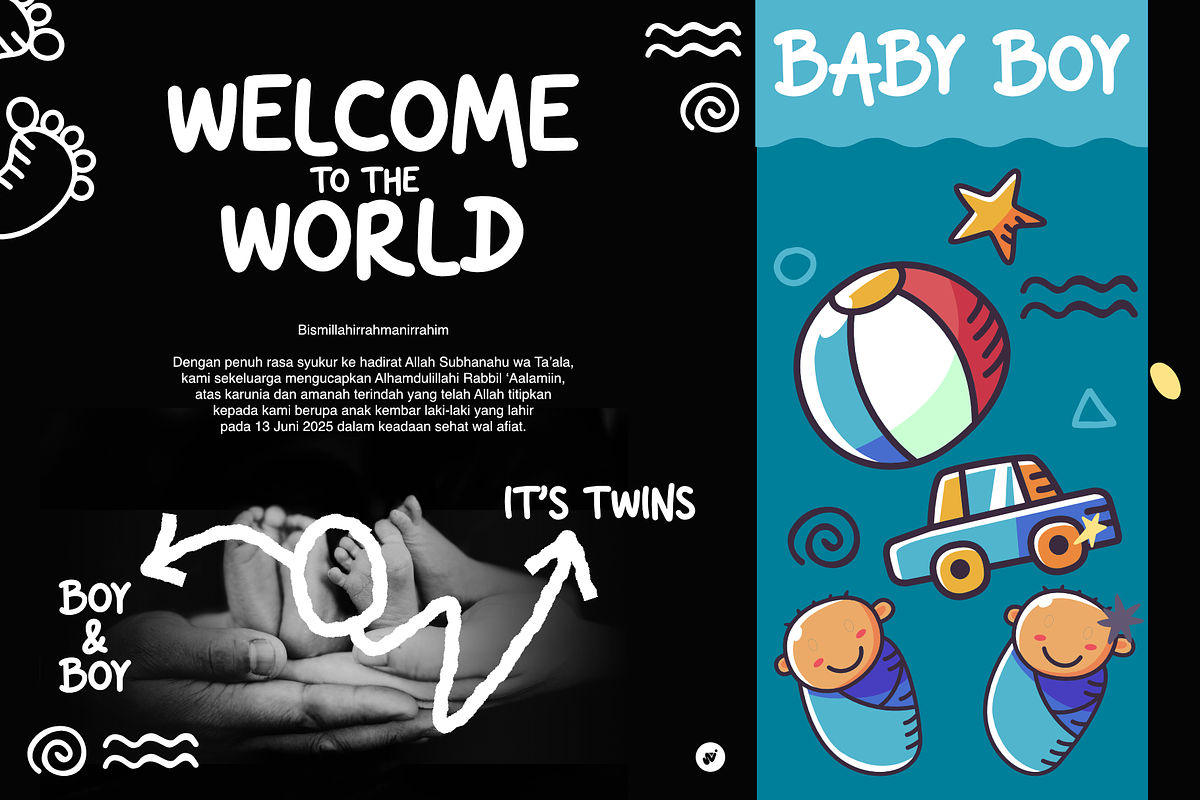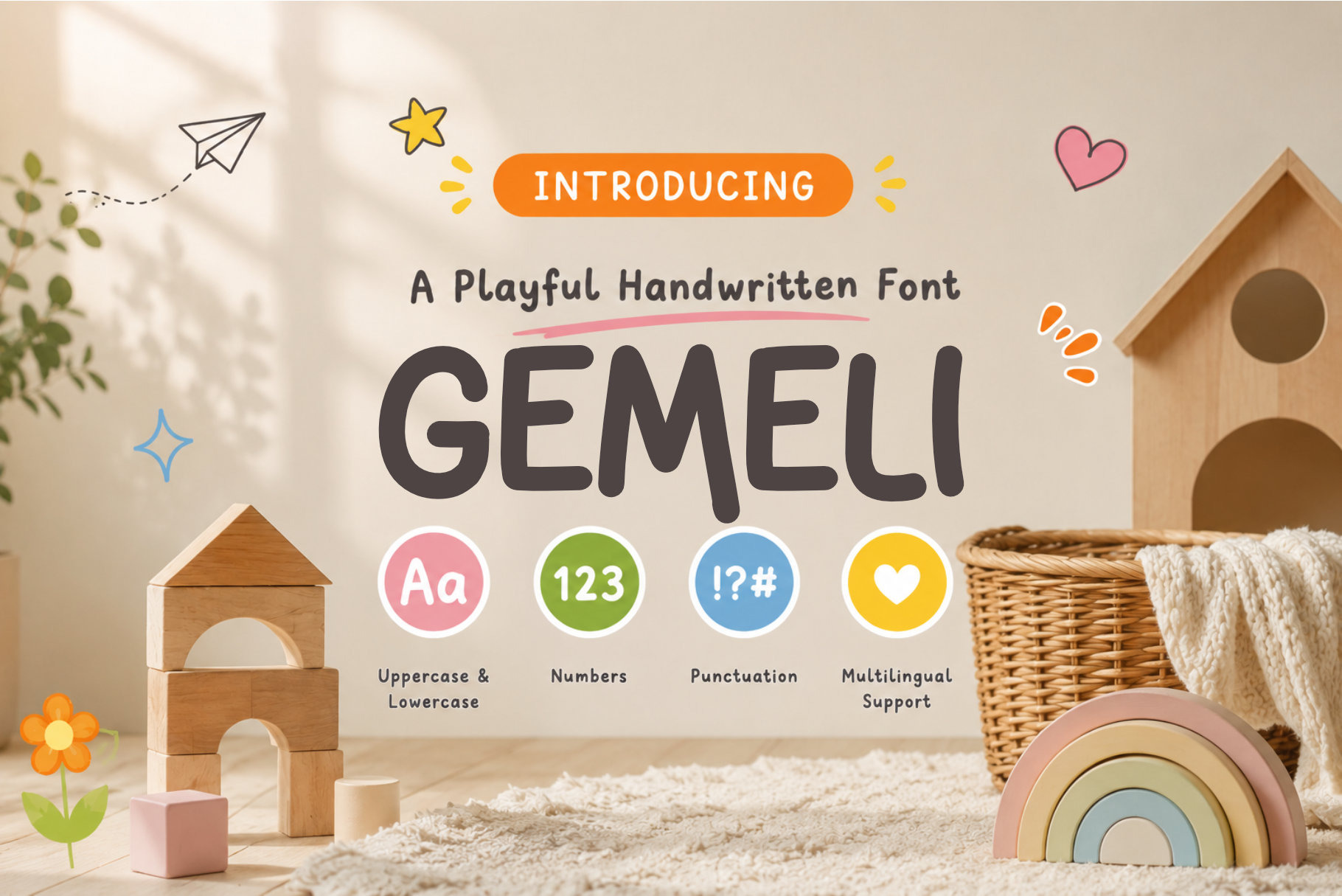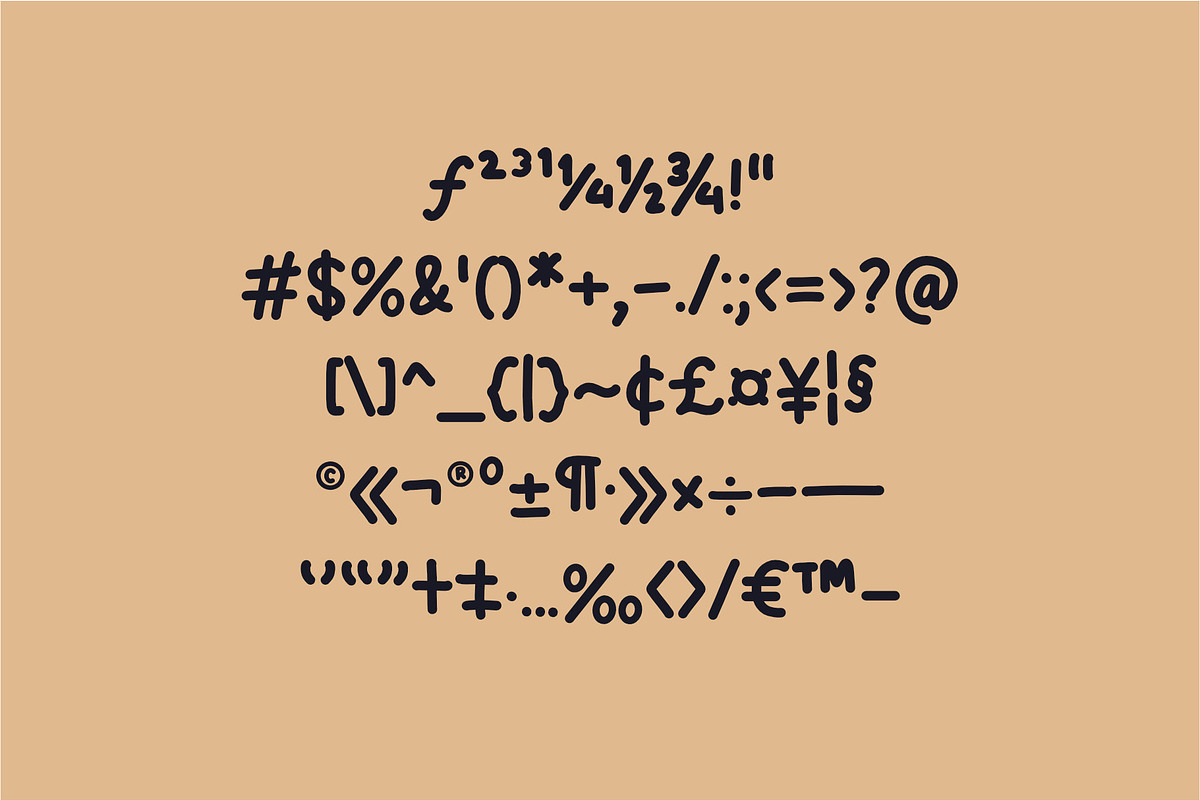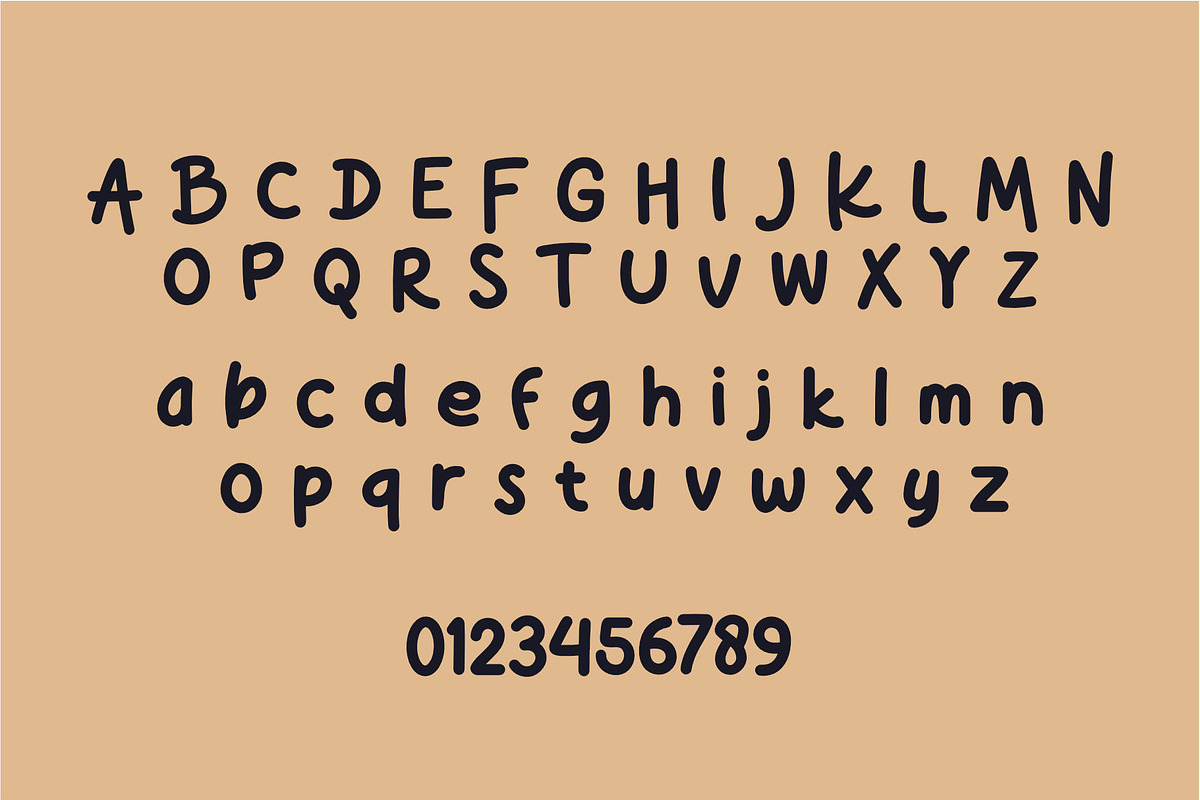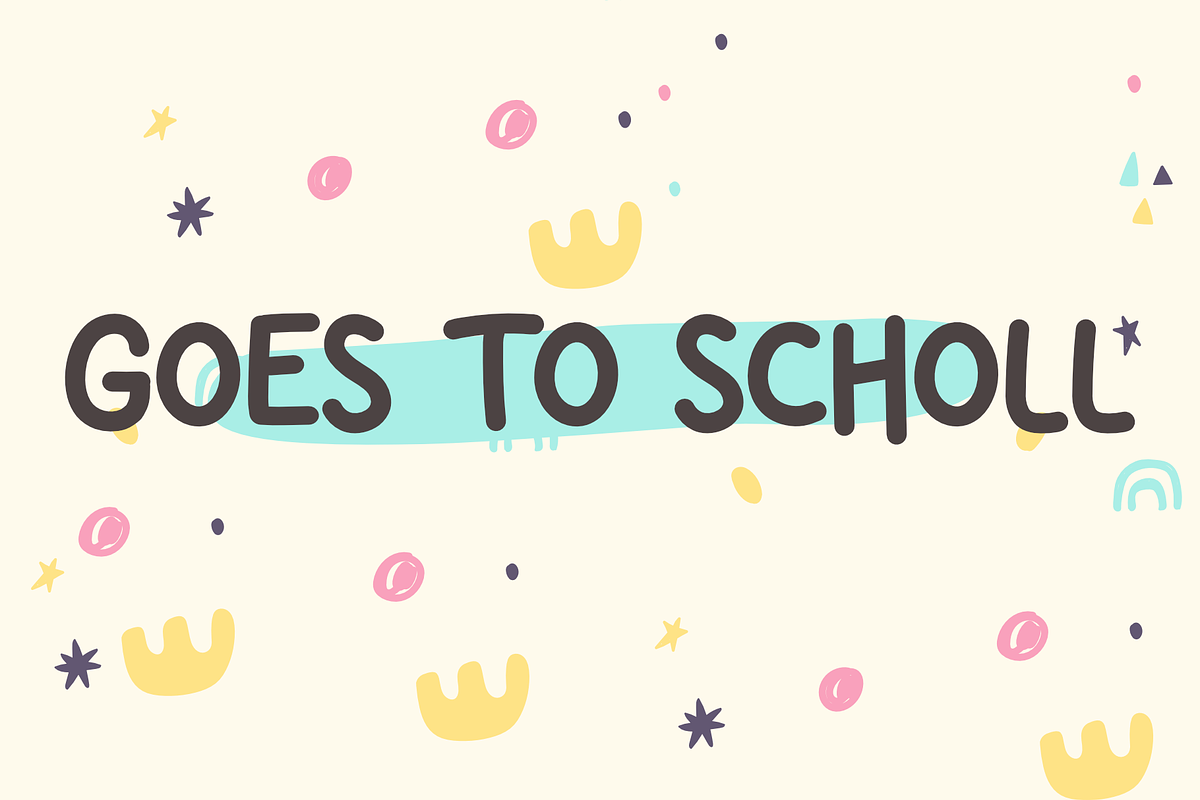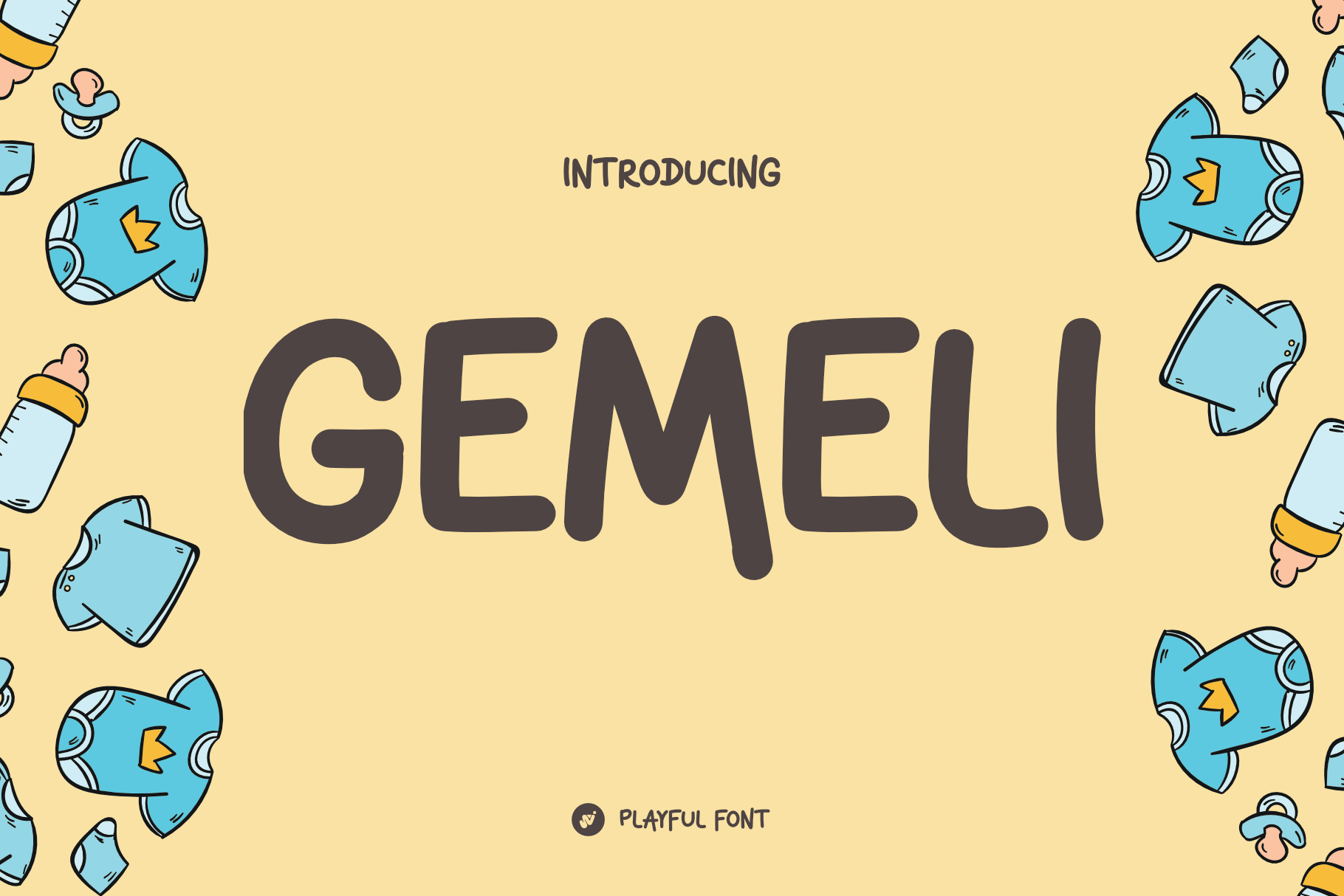
Gemeli - sticky playful font
A sticky handwrite font—a playful, handwritten style that often looks bubbly, soft, or even slightly “melty”—is great for designs that want to feel fun, personal, and informal. Here are some of the best uses:
🧸 1.
Children’s Content
Kids’ books, posters, games, and educational materials
Birthday invitations, name tags, or party favors
Appeals to young audiences with its friendly and approachable style
💌 2.
Greeting Cards & Notes
Thank-you cards, love notes, or personal letters
Sticky handwriting adds a casual, heartfelt vibe
🎨 3.
Crafts & DIY Projects
Labels for homemade items (like soaps, snacks, or candles)
Scrapbooking, journaling, or planners
📱 4.
Social Media & Digital Content
Quotes, captions, or thumbnails with a cheerful or quirky tone
Instagram Stories or YouTube covers aimed at a younger audience
🛍️ 5.
Creative Branding
Perfect for boutique brands, stationery shops, or handmade goods
Gives your brand a warm and human touch
📚 6.
Posters & Flyers for Events
School events, art fairs, community markets
Easy to read and instantly inviting